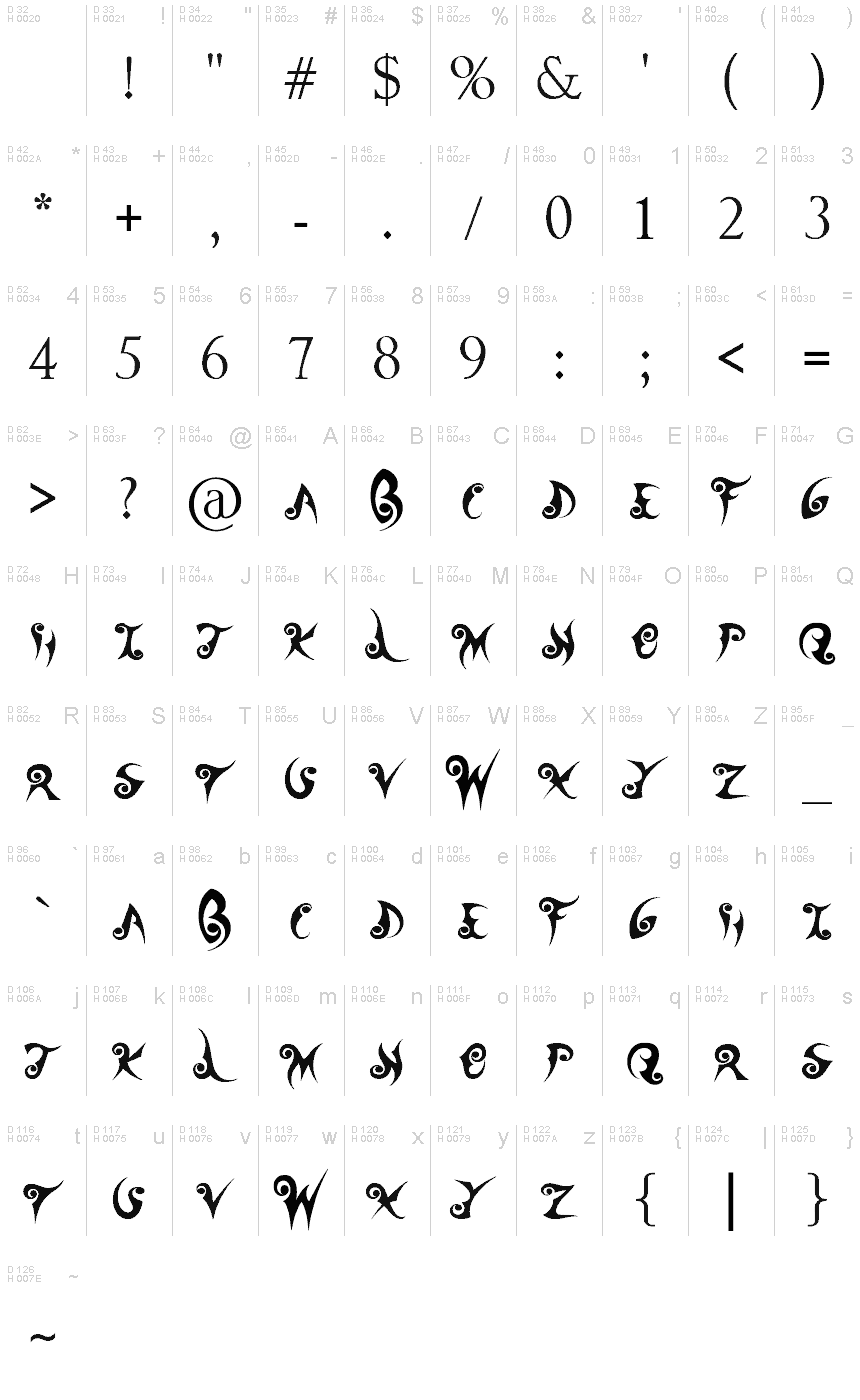
Wander Ball
Wander Ball, a creation of TattooWoo.com, stands out as a display font imbued with whimsical curls and an undeniable charm. Its playful swirls and sophisticated loops speak of a creative spirit that's both refreshing and engaging. The elegance of Wander Ball lies in its balance between ornate detail and legible structure, making it an ideal choice for design projects that require a touch of flair without compromising readability.
Its curly style exudes an aesthetic appeal that is versatile enough to enhance anything from event invitations to branding materials with a personalized, handcrafted look. Whether it's gracing the cover of a novel or adding character to a logo, Wander Ball has the potential to infuse your project with an artistic vibe that is both intriguing and delightful. The font’s unique personality is perfect for those seeking to make a statement while maintaining sophistication in their designs.